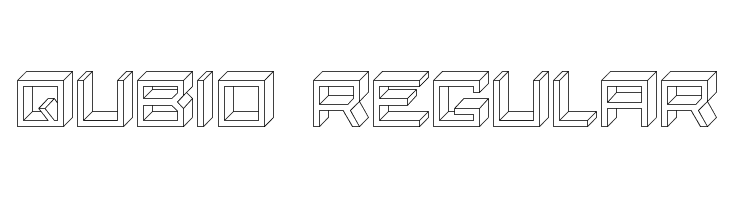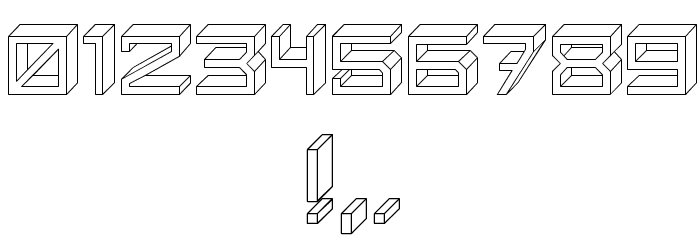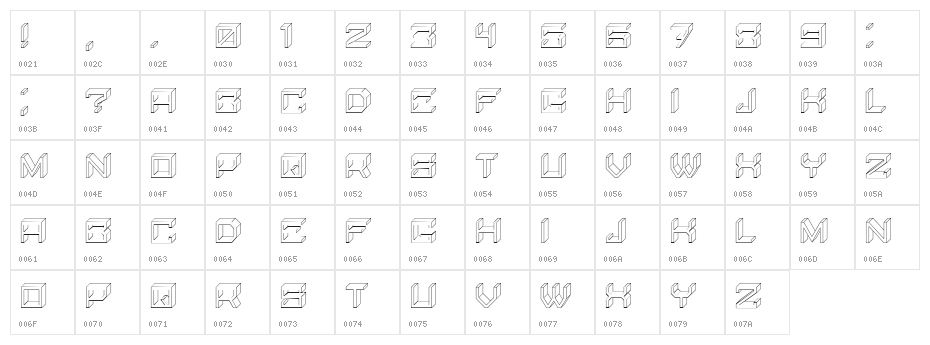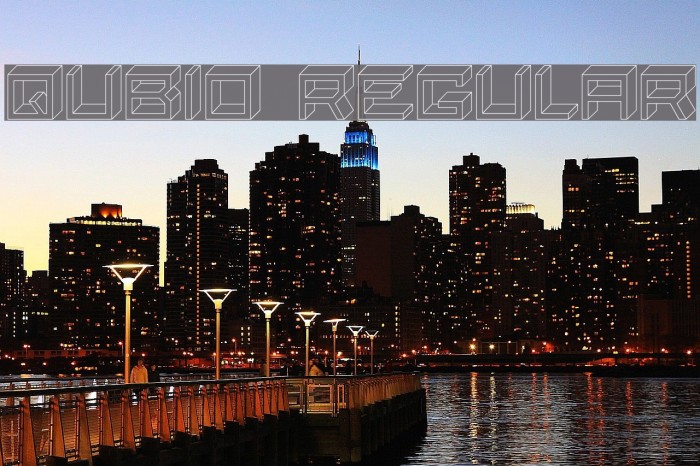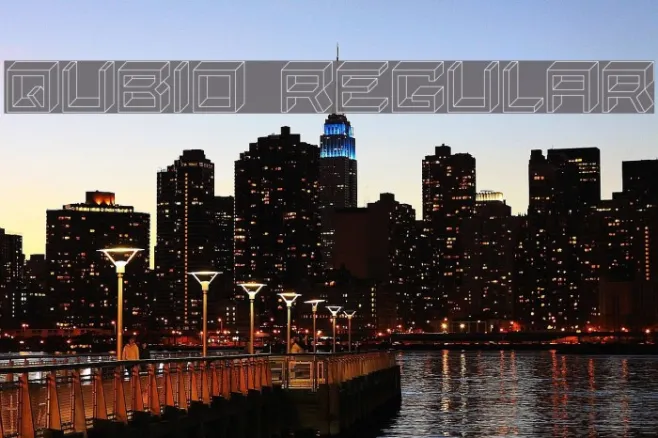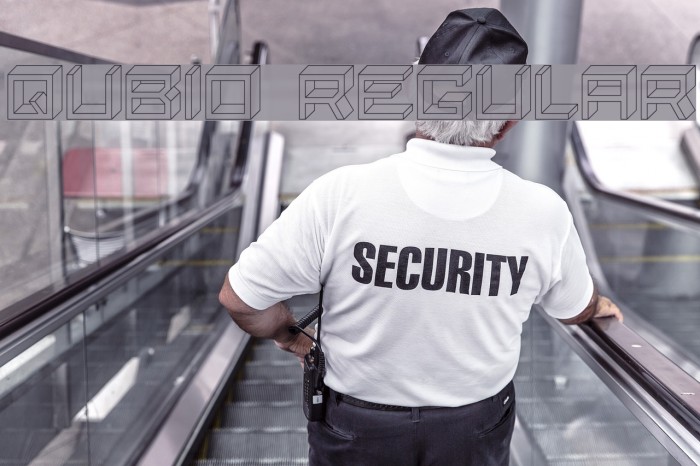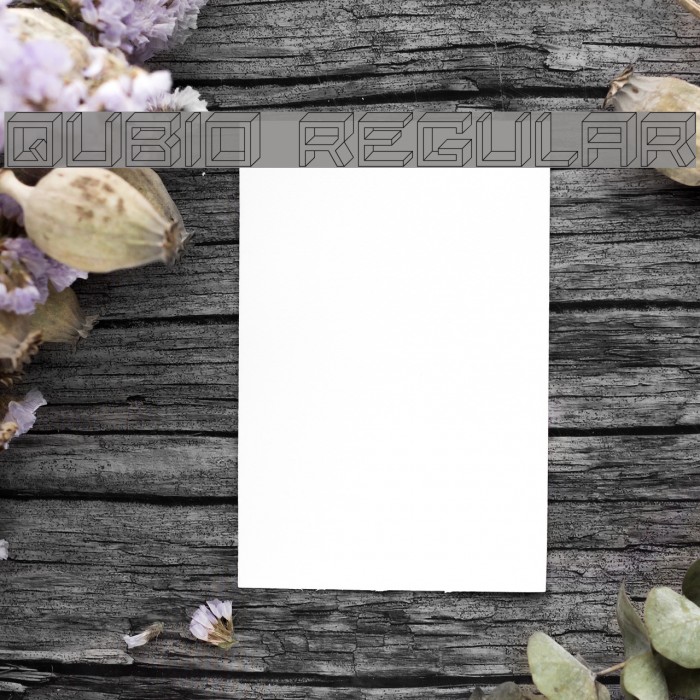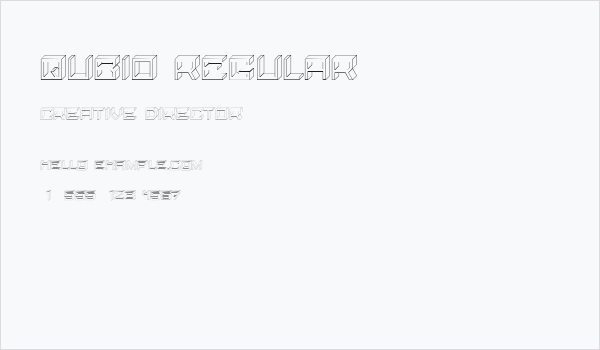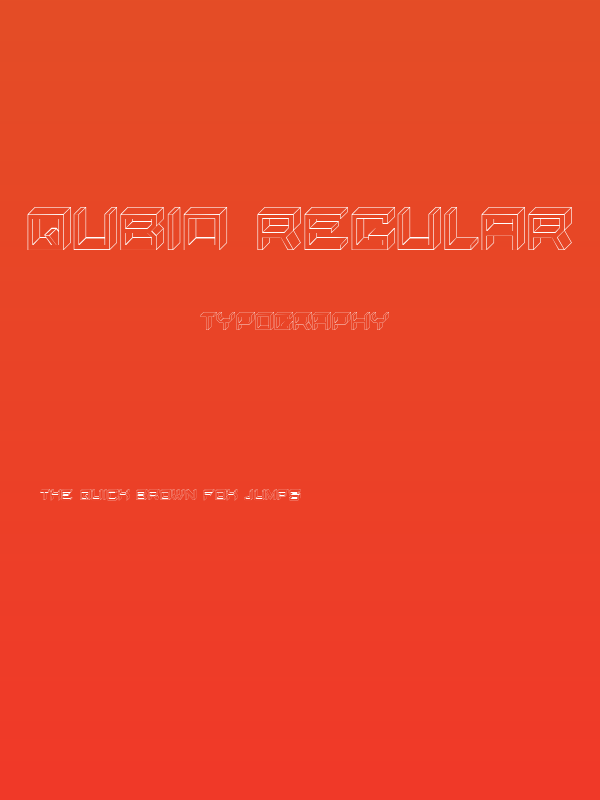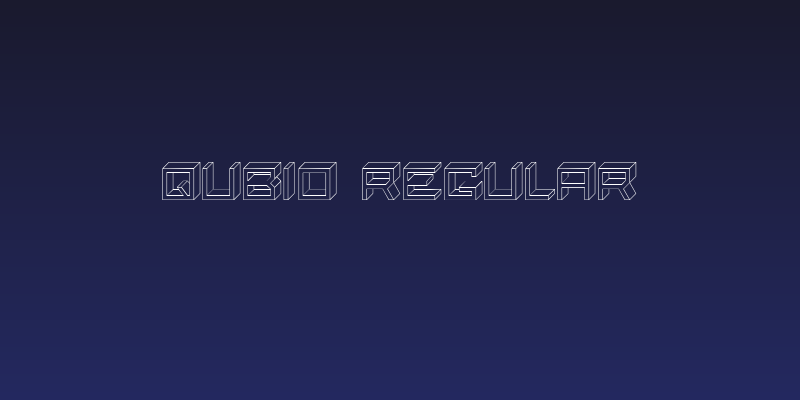
Qubio Regular Font
Qubio Regular Description
This font features a unique geometric design with a three-dimensional, block-like appearance. Each character is crafted with precision, showcasing a bold and structured form that gives an illusion of depth. The lines are clean and sharp, creating a futuristic and modern aesthetic. The uppercase and lowercase letters maintain consistency in style, while the numerals and special characters complement the overall design. This font stands out due to its distinctive 3D effect, making it ideal for eye-catching displays.
| Proposed Projects | Ideal for projects requiring a bold and modern touch, such as branding, posters, video game graphics, and futuristic-themed designs. |